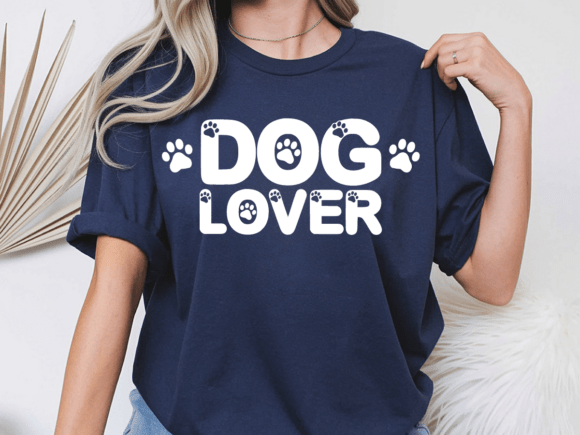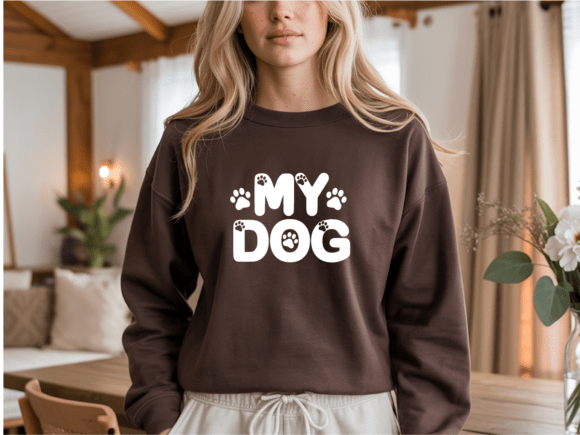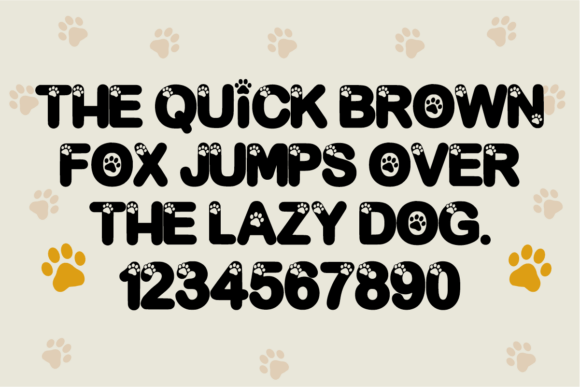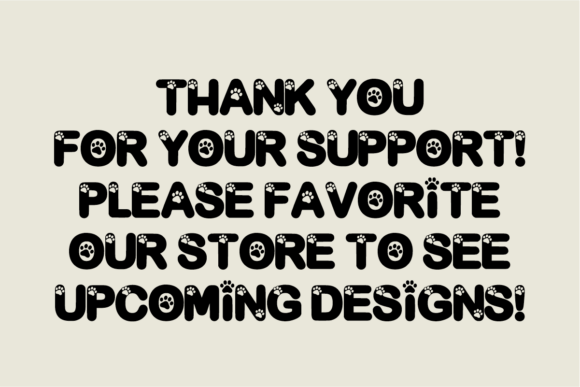
Unleashing the Cuteness: Small Dog Font
Have you ever stared at a blank page, surrounded by scraps of paper, glue, and glitter, wondering how to make your next creative project truly special? That’s exactly where I was when I discovered the Small Dog Font – and it completely changed the game. This adorable decorative font features bold, rounded characters accented with charming paw print details that are sure to bring a smile to anyone’s face.
As a designer, I know how valuable it is to have high-quality design resources at your fingertips. That’s why I’m excited to share the Small Dog Font with you – a fully optimized font that works beautifully in Canva or Procreate and is perfect for smooth cutting with Cricut and Silhouette. Whether you’re a professional designer or a “Dog Mom” crafting at home, this font is a must-have for anyone looking to create something truly special for their furry friends or pet-themed businesses.
- Features a unique, playful design that is perfect for adding a touch of whimsy to your creative project.
Honest Review: Small Dog Font
I recently had the chance to work with the Small Dog Font, and I have to say, it’s a great addition to any creative project. This font is perfect for designers who want to add a touch of whimsy and playfulness to their designs.
- ✨ High quality design: The Small Dog Font is incredibly detailed and visually appealing, making it perfect for high-end design projects.
- ⚠️ Limited character set: The font only includes a limited character set, which may not be suitable for longer texts or paragraphs.
- ⚠️ Not ideal for body text: Due to its playful nature, the Small Dog Font may not be the best choice for body text, but it’s perfect for headlines and titles.
Overall, I’m really impressed with the Small Dog Font. It’s a fantastic design resource that’s perfect for creative projects where you want to add a touch of fun and personality. Just be mindful of its limitations, and you’ll be golden.
The Small Dog Font is suitable for a wide range of creative projects, including social media graphics, blog posts, business cards, and presentations. Its versatility and high-quality design make it an excellent addition to any design resource library.